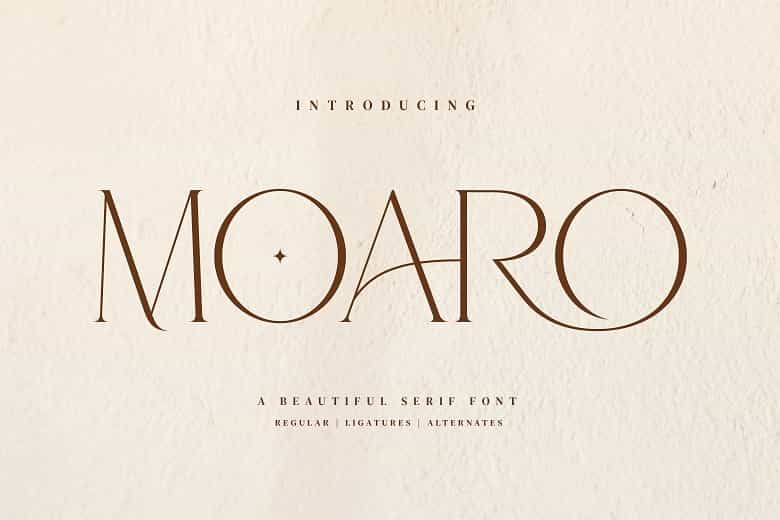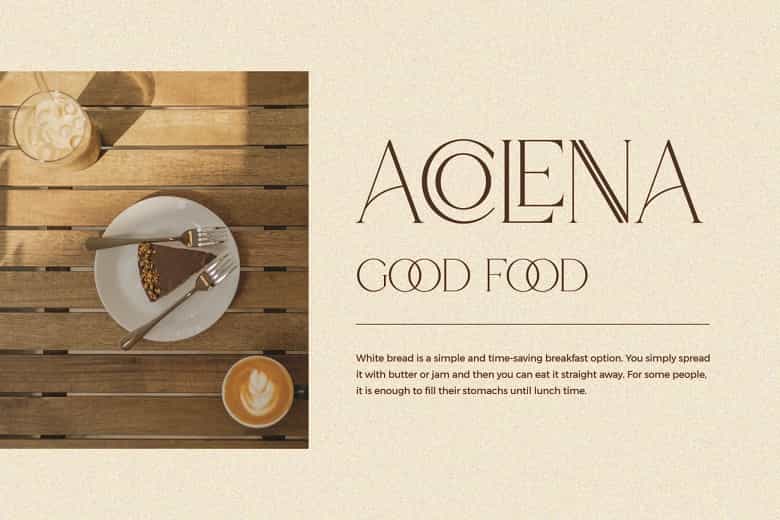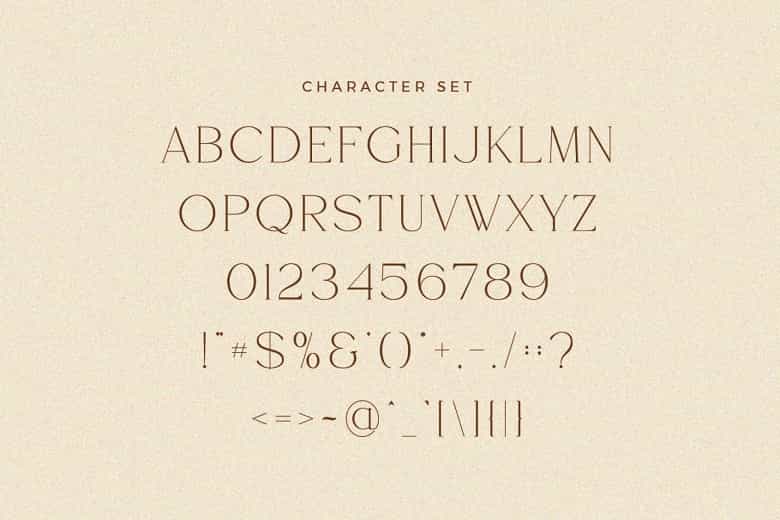
Moaro is a new beautiful serif font, based on the famous minimalist logo suitable for templating, brochures, video, advertising, branding, logo and many more.